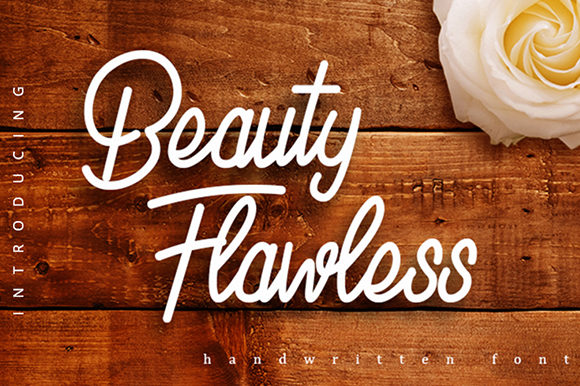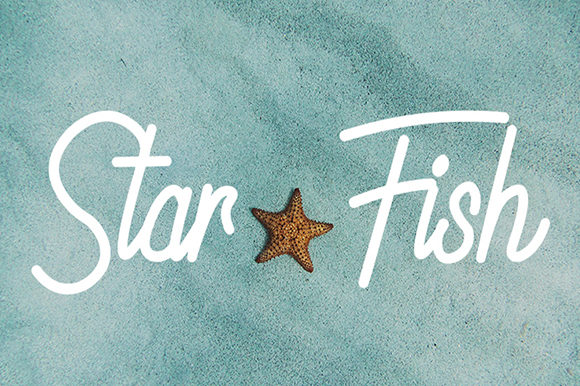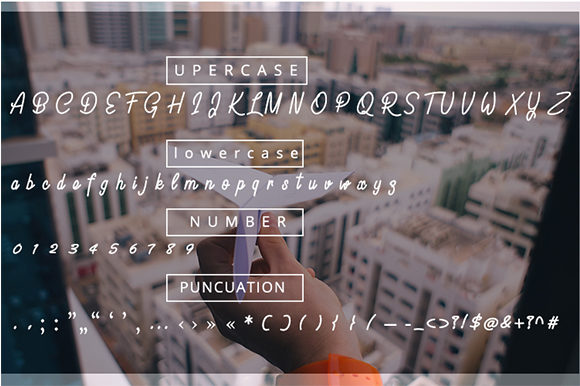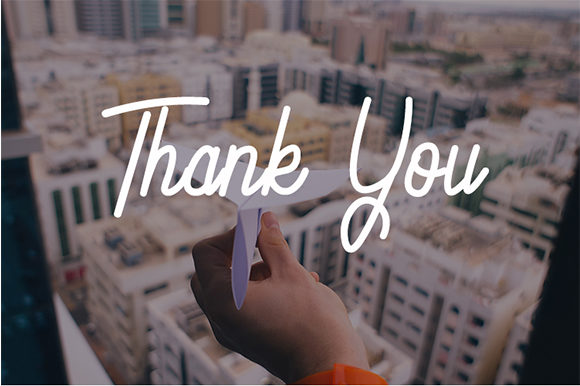
Beauty Flawless Font
About Beauty Flawless Font
Beauty Flawless, is, as the name suggests, a flawlessly beautiful script with incredible lettering. Use it to add an authentic and chic feel to any design!